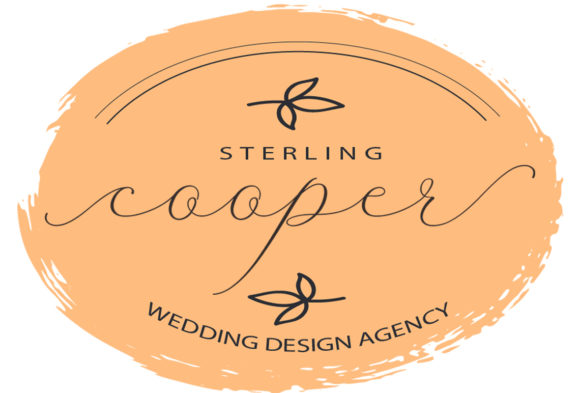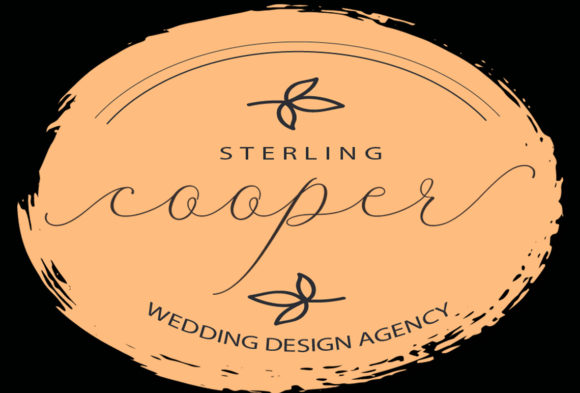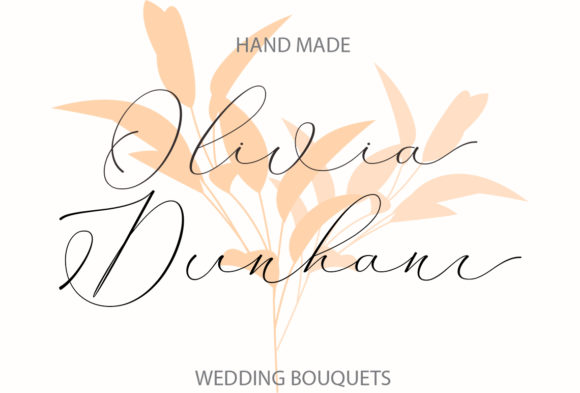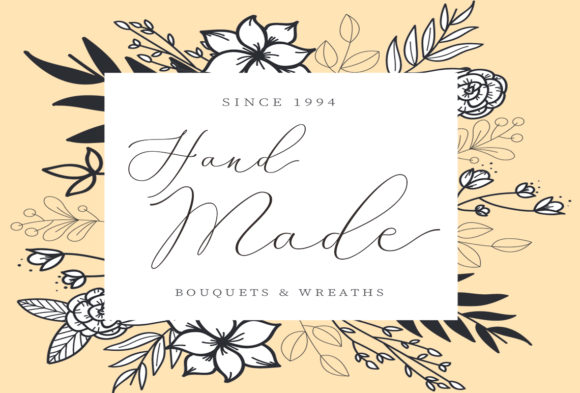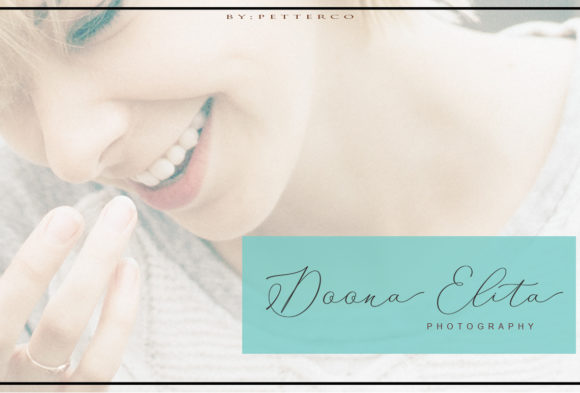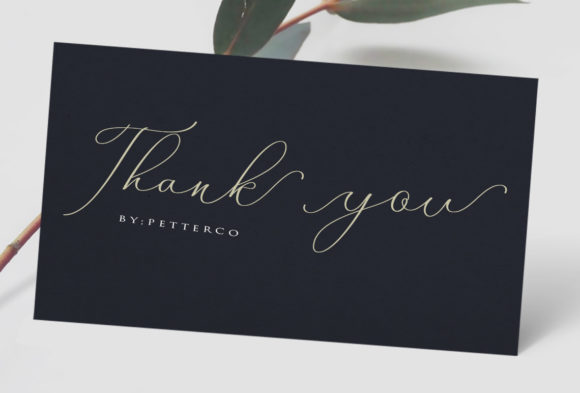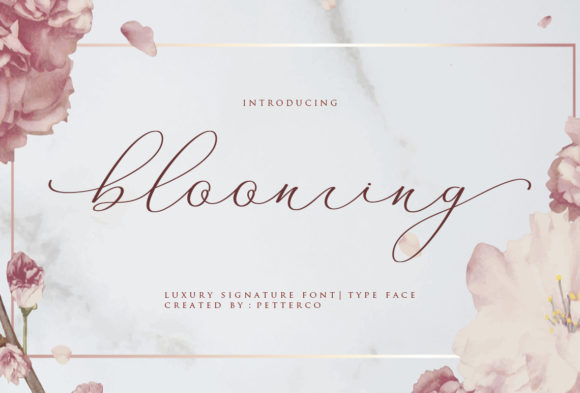
The Blooming Font: Elevate Your Designs with Elegance
I’ll never forget the time I was working on a wedding invitation project, and my client asked for a font that would make their special day feel like a fairytale. I scoured the internet, tried countless fonts, but nothing seemed quite right. That was until I stumbled upon Blooming, a fancy calligraphy font that instantly transported me to a world of romance and sophistication. In this article, I’ll share my love for Blooming, its features, and how to make the most of it in your designs.
An Honest Review of Blooming Font
- ✨ Elegant and sophisticated feel that’s perfect for high-end designs
- ✅ Highly versatile and can be used for a wide range of projects, from branding to social media posts
- 💫 Beautifully crafted with attention to detail, making it a joy to work with
- 🎨 Supports OpenType features, glyphs, and stylistic alternates, giving you plenty of creative freedom
While Blooming is an amazing font, there are a few things to keep in mind:
- ⚠️ Some of the more intricate details may not render well at smaller font sizes
- 🤔 Limited availability of certain characters, so be sure to check the font’s capabilities before committing to a design
The Designer Inspiration Behind Blooming
Blooming was inspired by the beauty of nature and the art of traditional calligraphy. Its creator wanted to craft a font that would evoke the feeling of a garden in bloom, with delicate petals and intricate details. The result is a font that’s both elegant and sophisticated, perfect for designs that need a touch of refinement.
Q: What type of projects is Blooming best suited for?
Blooming is a versatile font that’s perfect for a wide range of projects, including branding, logos, wedding designs, social media posts, advertisements, product packaging, and more.